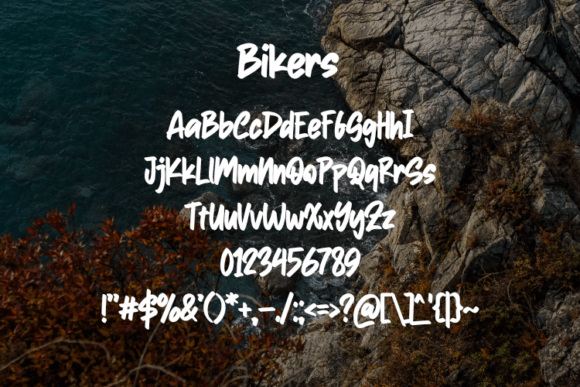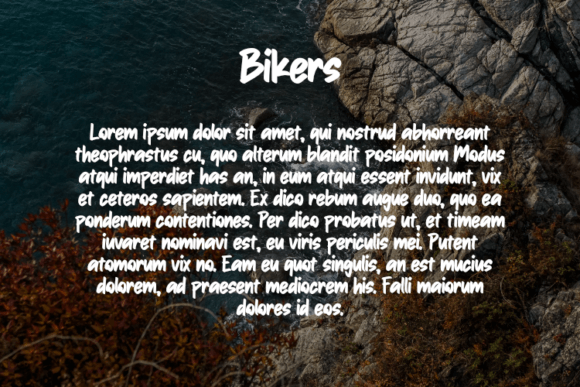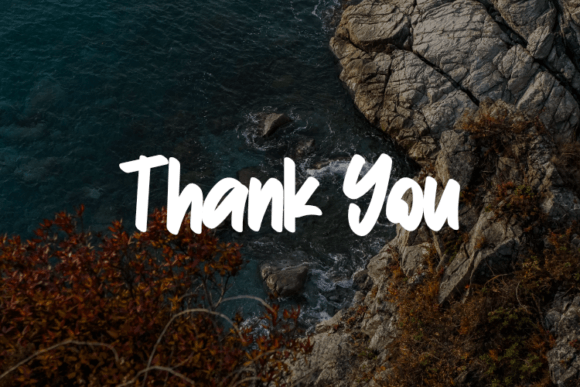
Unleash Your Creativity with Bikers Font: The Ultimate Design Companion
Are you a designer, crafter, or DIY enthusiast looking for a font that can elevate your creative projects? Look no further than Bikers Font, a stylish and versatile typeface that’s perfect for clothing design, T-shirt decor, and a wide range of other creative products. In this article, we’ll introduce you to the world of Bikers Font, exploring its features, benefits, and uses, and show you how it can transform your designs into extraordinary creations.
What is Bikers Font?
Bikers Font is a carefully crafted typeface designed to meet the needs of modern designers and crafters. Its unique aesthetic and enticing style make it an ideal choice for anyone looking to add a touch of personality to their designs. Whether you’re creating custom T-shirts, hoodies, or other apparel, Bikers Font is the perfect companion to help you stand out from the crowd.
Key Features of Bikers Font
- Aesthetically Versatile: Bikers Font boasts a unique and captivating style that can enhance any design project. Its versatility allows it to thrive across various design platforms and interfaces.
- Wide Range of Applications: From clothing design and T-shirt decor to posters, flyers, and digital graphics, Bikers Font is perfect for a variety of creative projects.
Benefits of Using Bikers Font
So, why choose Bikers Font for your design projects? Here are just a few benefits you can expect:
- Enhance Your Designs: Bikers Font can transform ordinary designs into extraordinary creations, adding a touch of personality and style.
- Boost Creativity: With Bikers Font, you can experiment with new design ideas and push the boundaries of your creativity.
- Stand Out from the Crowd: Bikers Font is a unique and distinctive typeface that can help you differentiate your designs and stand out in a crowded market.
Design Ideas with Bikers Font
Bikers Font is a versatile typeface that can be used in a wide range of design projects. Here are some ideas to get you started:
- Custom Apparel: Create unique T-shirts, hoodies, or hats with Bikers Font.
- Posters and Flyers: Use Bikers Font to create eye-catching posters and flyers for events, promotions, or advertising.
- Digital Graphics: Add Bikers Font to your digital graphics, such as social media graphics, blog headers, or email newsletters.
- Crafting Projects: Use Bikers Font to create custom signs, banners, or decorations for your crafting projects.
In conclusion, Bikers Font is a must-have design asset for anyone looking to elevate their creative projects. Its unique aesthetic, versatility, and ease of use make it an essential tool for designers, crafters, and DIY enthusiasts. Whether you’re creating custom apparel, posters, or digital graphics, Bikers Font is the perfect companion to help you achieve your design goals. So why wait? Download Bikers Font today and unleash your creativity!